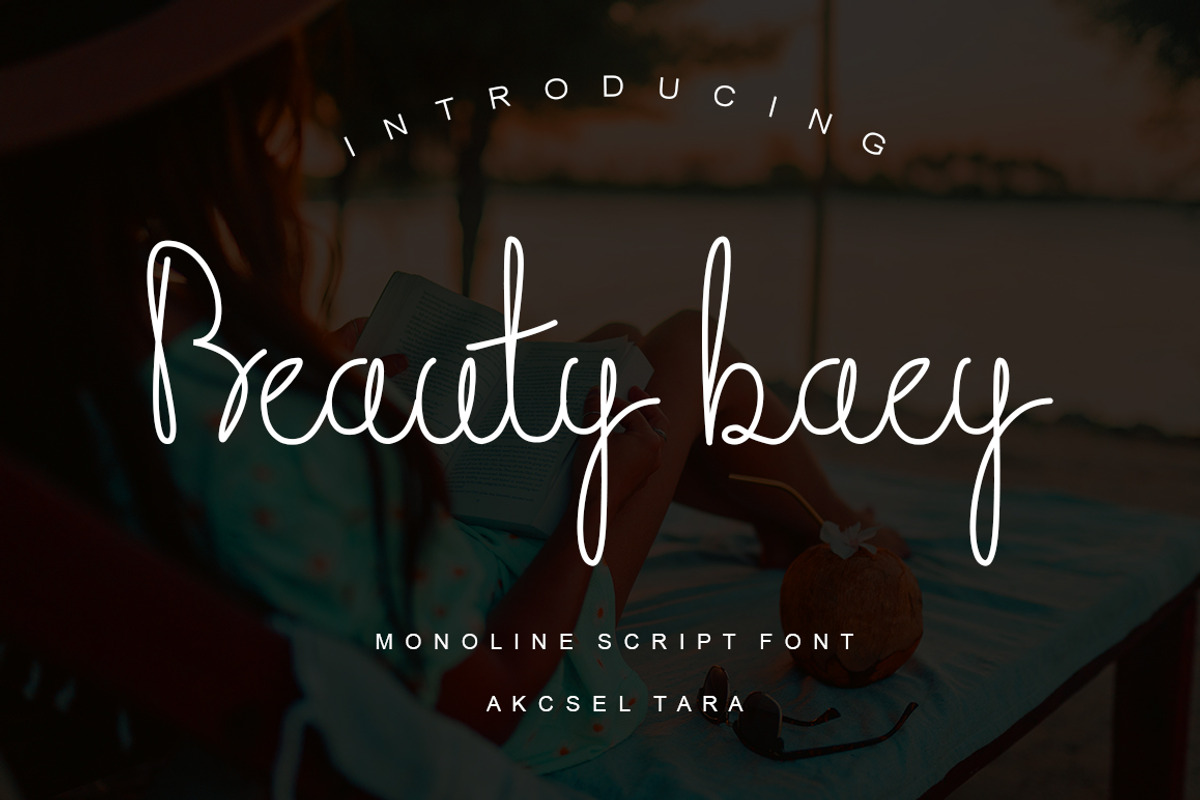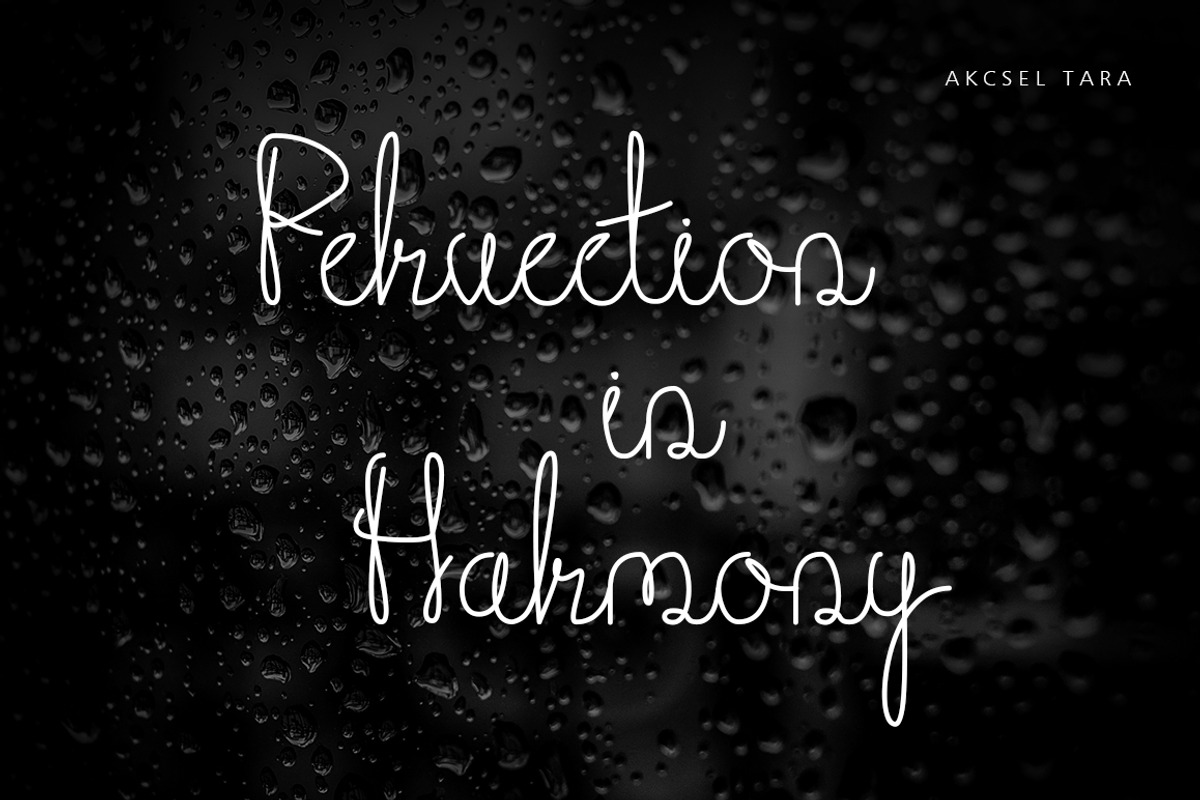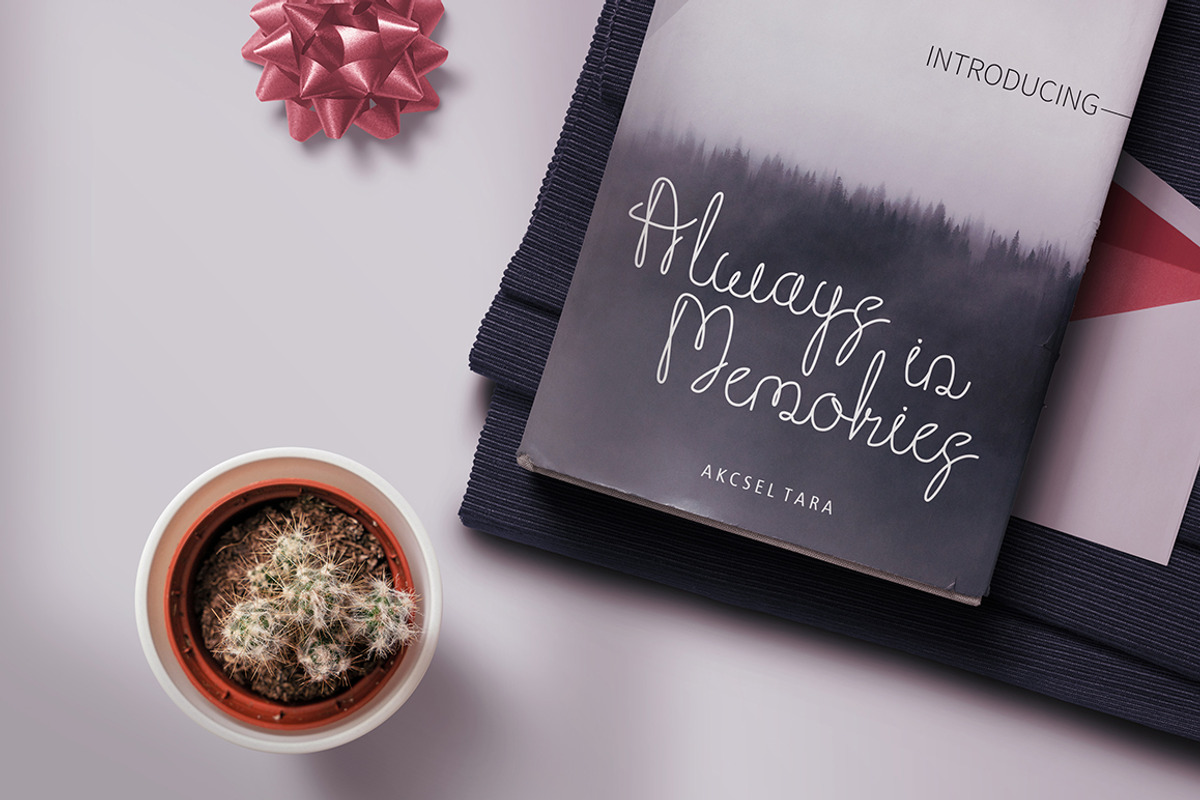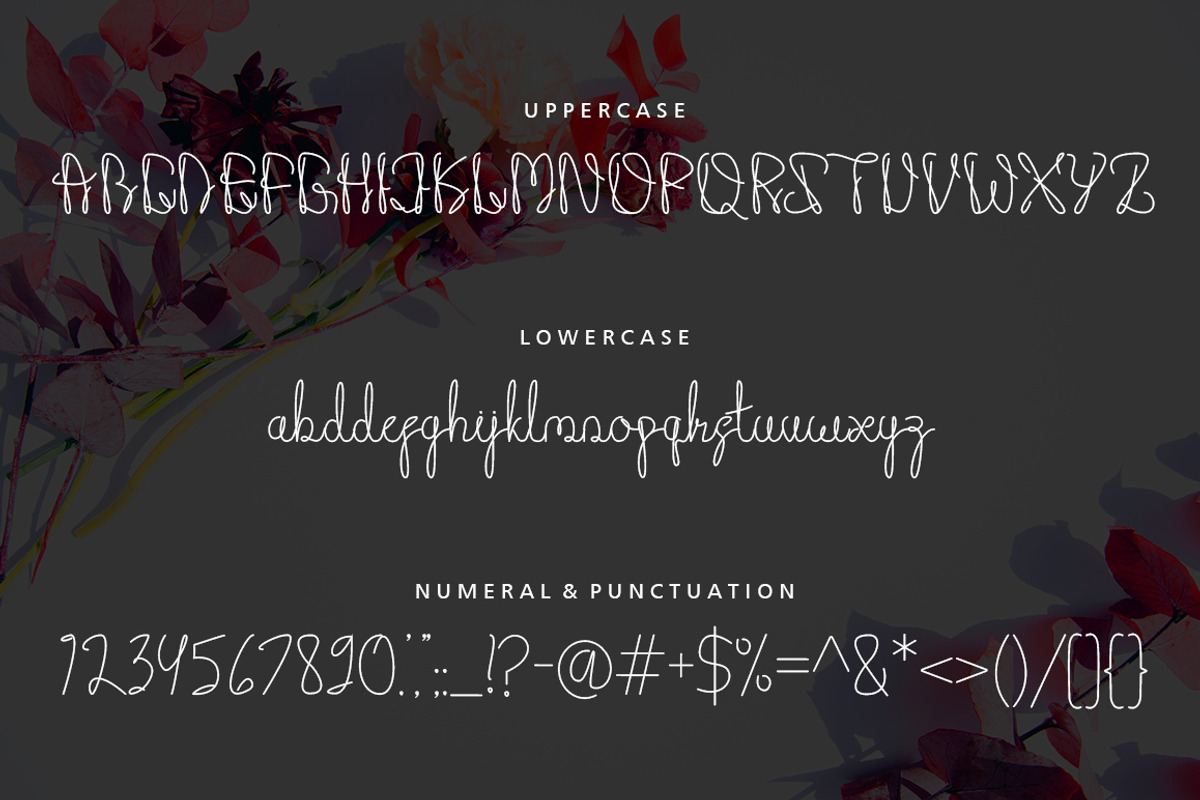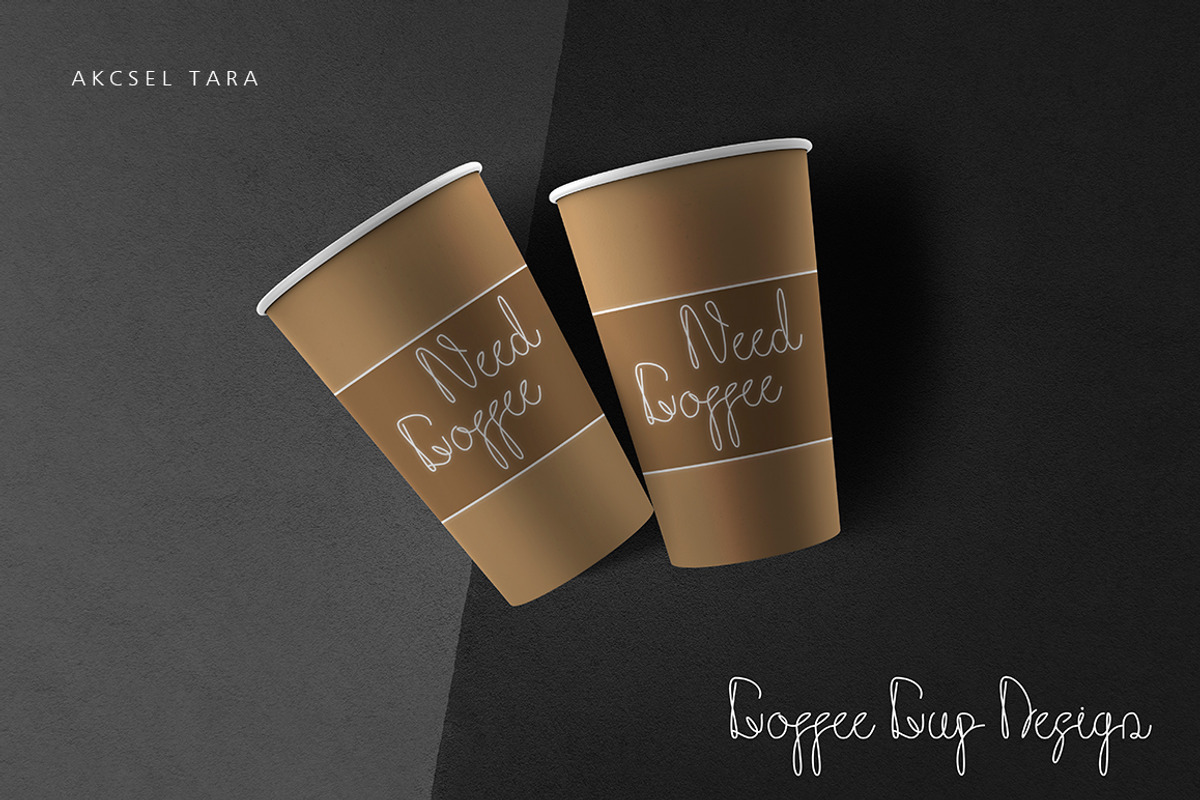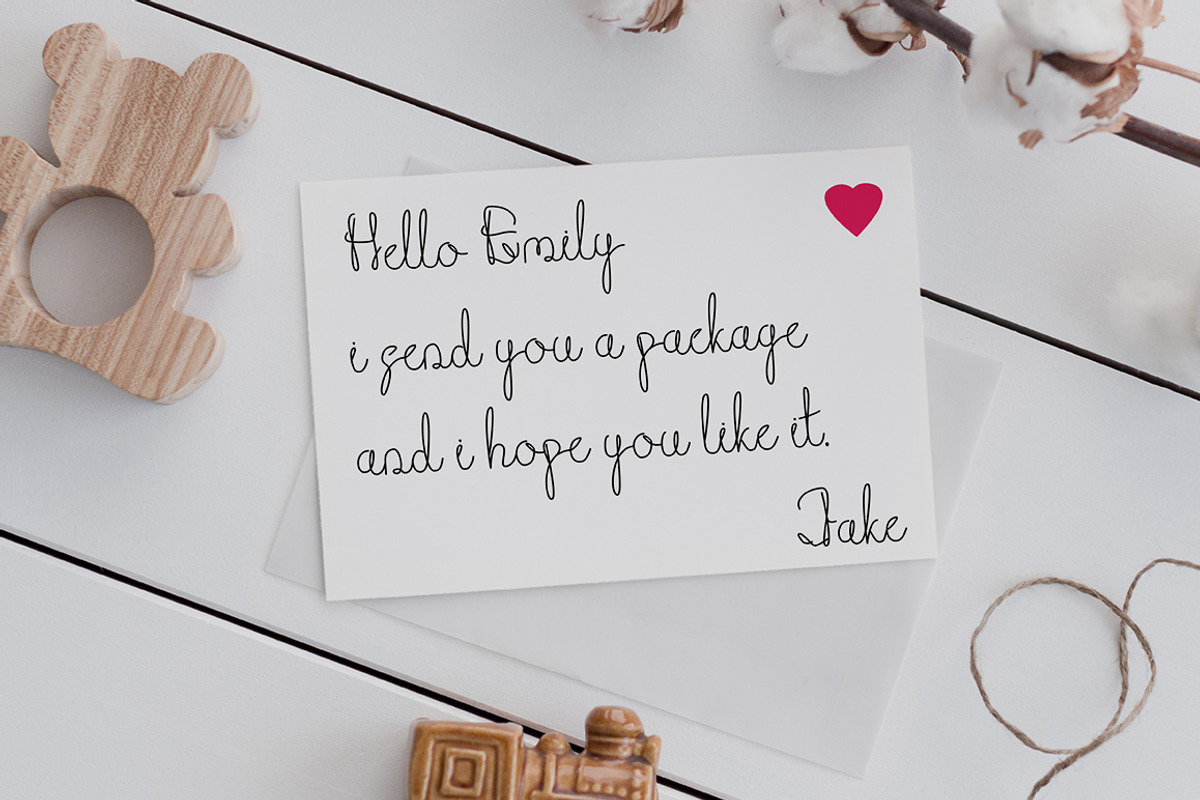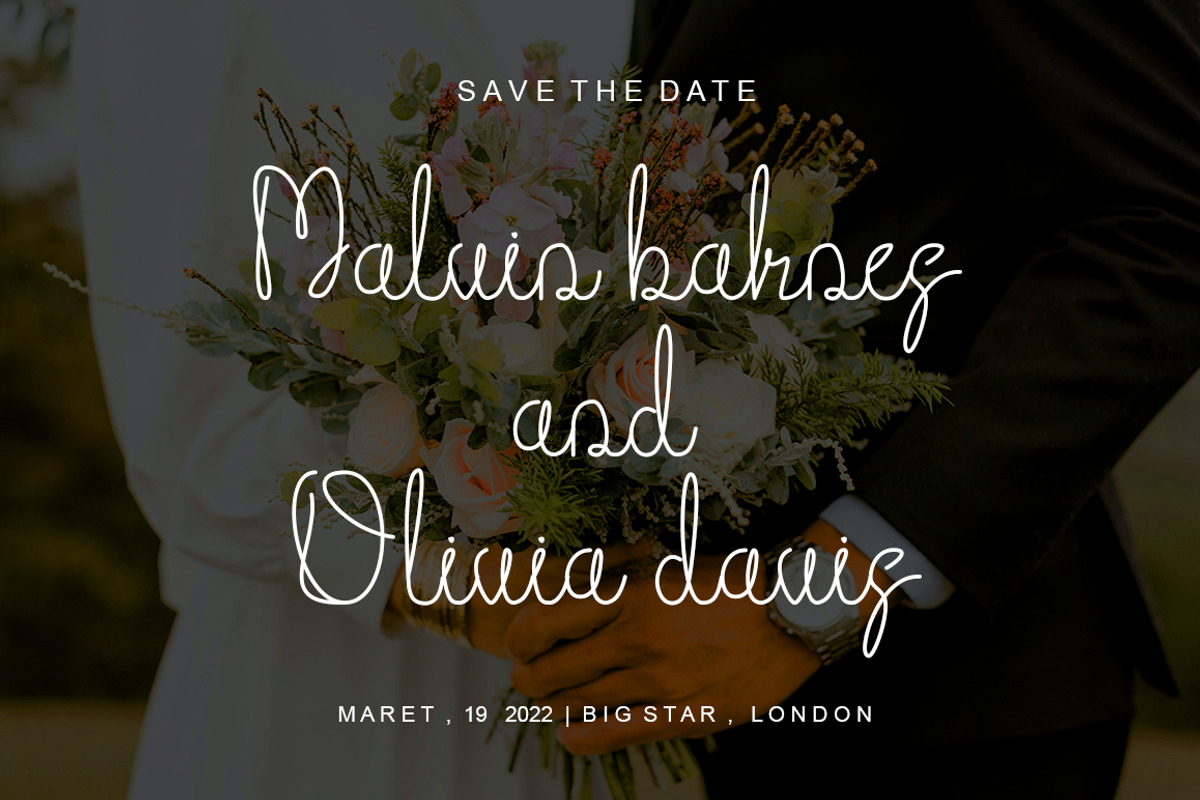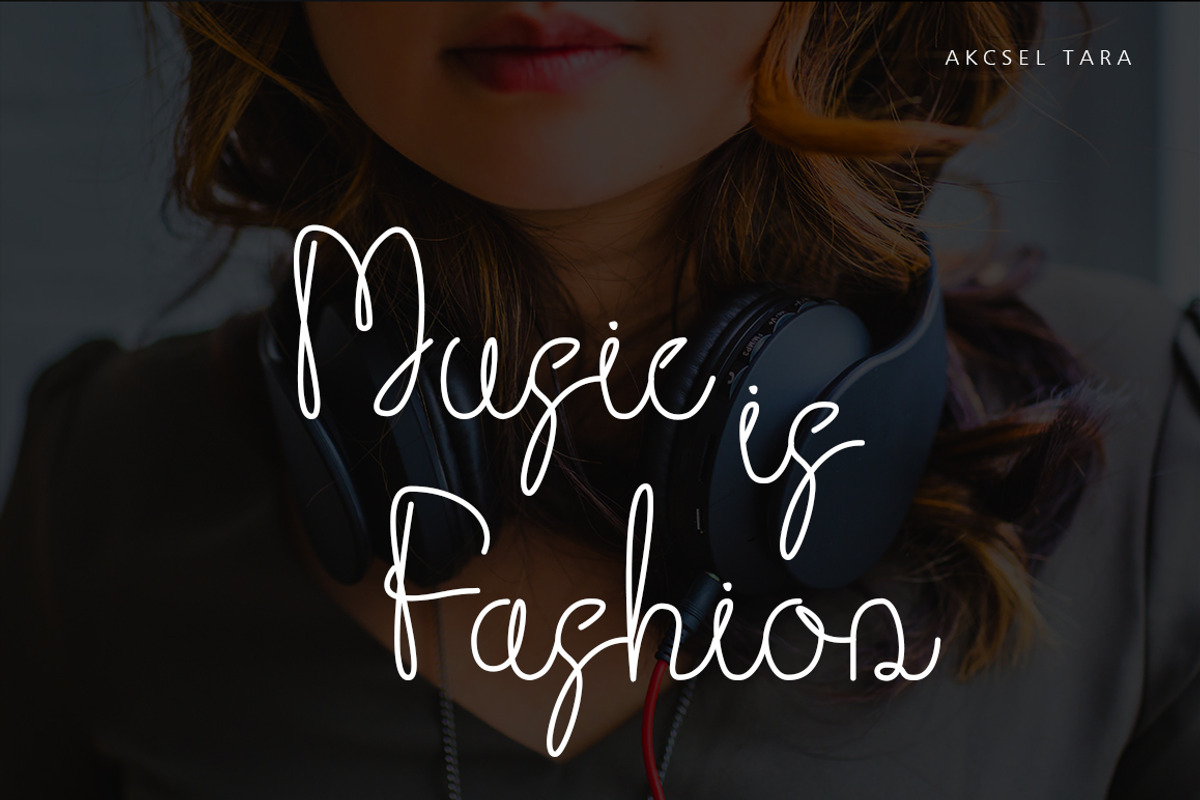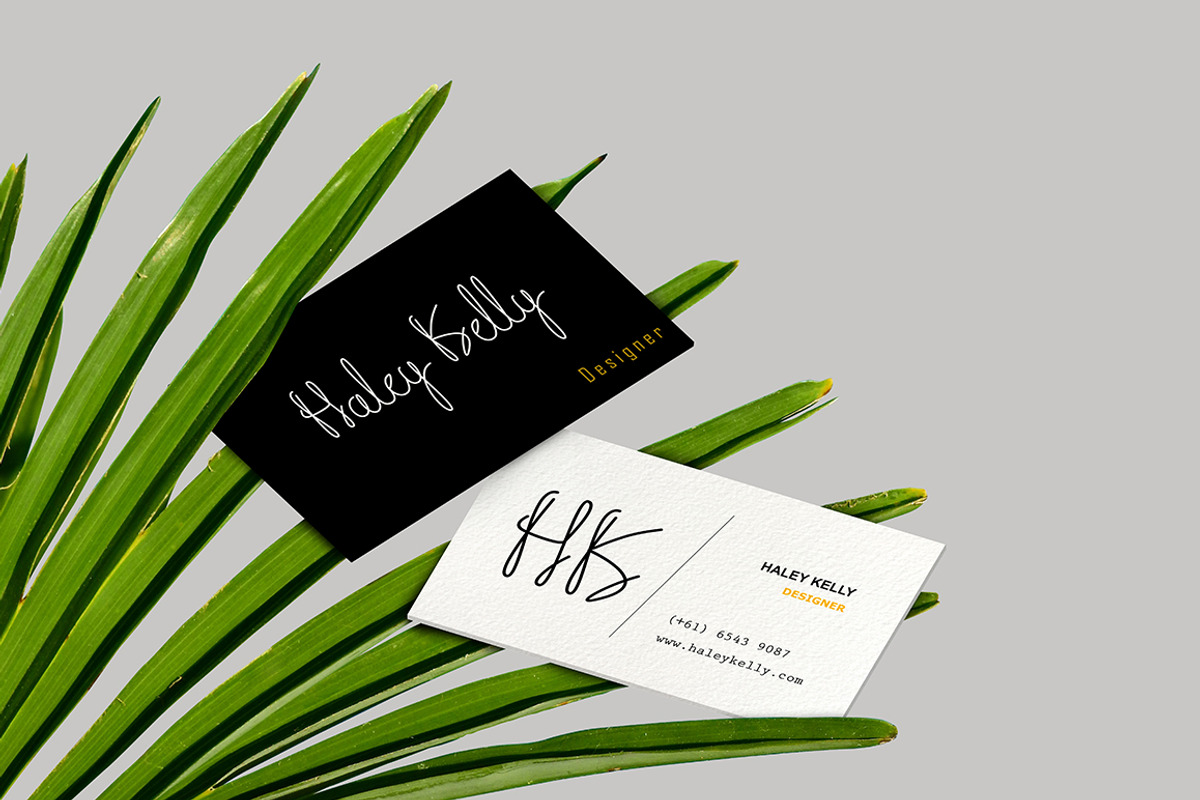
Beauty baey - Monoline Script Font
Beauty baey is a relaxed and clean monoline script font with a neat and consistent typeface.
Beauty baey is perfect for logos, greeting card, wedding card, name card, book titles, brand identity, packaging, any project, and much more.
Beauty baey includes all upper and lower case standard character, punctuation, and numerals.